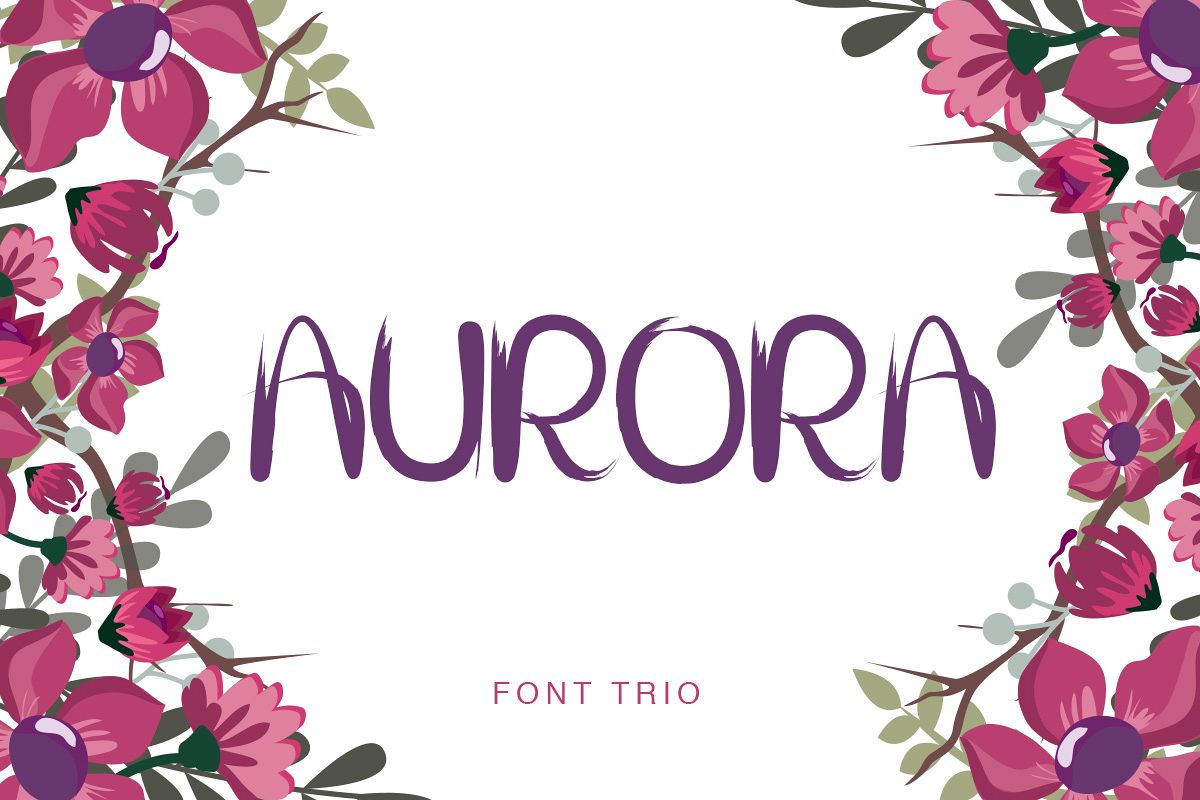
Aurora Font
Aurora Alternate
Aurora Light
Aurora
Introducing Aurora - a new beautiful script with a nice calligraphy-style, and a brush baseline, comes with upper and lowercase characters within the 3 fonts ( regular, light, and alternate version). So beautiful on invitation like greeting cards, branding materials, business cards, quotes, posters, and more!